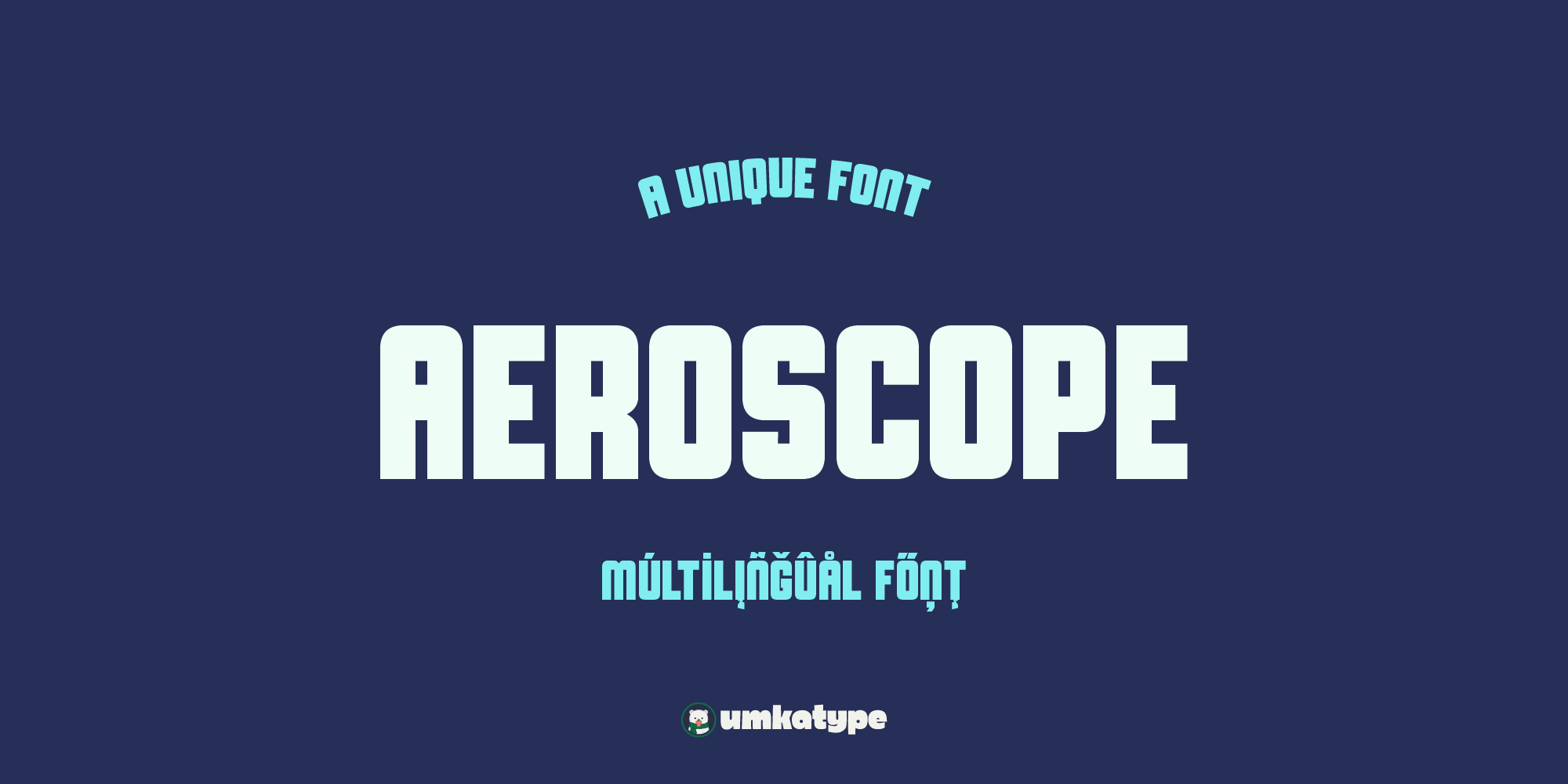
This futuristic typeface is perfect for aerospace companies, aviation branding, aircraft manufacturers, space exploration agencies, flight simulator interfaces, air traffic control systems, pilot training materials, aviation museums, aerospace engineering firms, drone technology companies, satellite communications, aircraft maintenance services, and aviation safety organizations. The font's aerodynamic design makes it ideal for projects that celebrate flight, exploration, and cutting-edge aerospace technology.
Aeroscope Font is exciting because it captures the precision and innovation of modern aviation through its streamlined letterforms and aerodynamic character structure. The font's sleek curves and technical proportions create an atmosphere of speed, efficiency, and technological advancement, making it perfect for brands that want to convey expertise, reliability, and forward-thinking innovation. Its professional appearance ensures instant credibility while maintaining excellent legibility across various technical applications.
The Aeroscope Font family includes multiple flight-ready variations: Light Glider, Regular Cruiser, Medium Jet, Bold Supersonic, and Black Hypersonic weights, each available in standard and condensed versions. Special aviation editions feature technical alternates, instrument-inspired numerals, and aeronautical symbols that enhance the font's professional appeal, providing designers with comprehensive tools for creating authentic aerospace communications.
Soar to new heights with Aeroscope Font Free Download – a typeface that embodies precision engineering and aviation excellence. Whether you're developing aerospace branding, aviation training materials, or flight-related marketing campaigns, this font delivers the technical sophistication and professional credibility your projects need while ensuring exceptional performance and cutting-edge appeal across all aviation and aerospace applications.